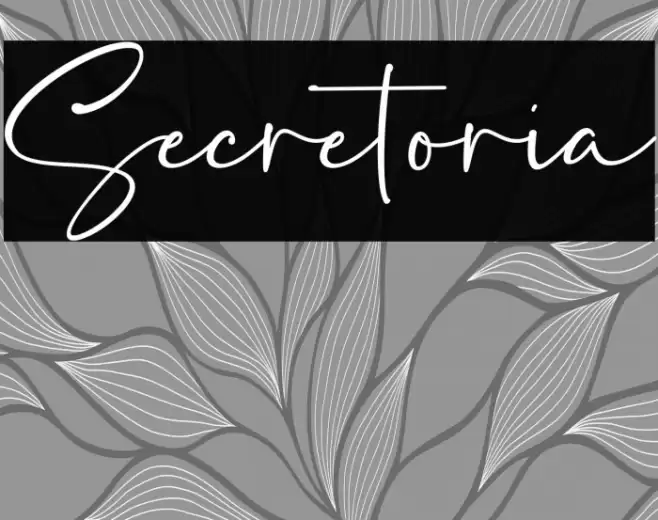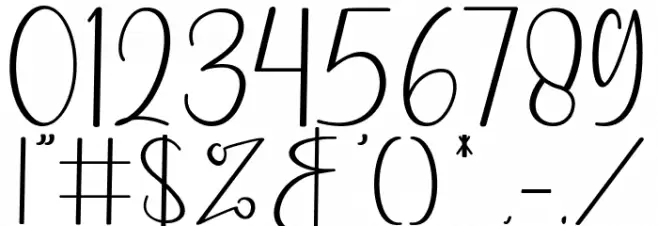
Secretoria Font
Secretoria Description
This font features a lively and flowing script style, characterized by its elegant and fluid strokes. The uppercase letters exhibit a graceful looped design, while the lowercase letters maintain a consistent cursive flow, enhancing readability. The numerals are distinct and slightly elongated, adding a touch of sophistication. Special characters are creatively integrated, maintaining the overall aesthetic. The font's playful yet refined appearance makes it suitable for a variety of creative applications.
A lively and elegant script font with fluid strokes and a refined appearance from Regular fonts.